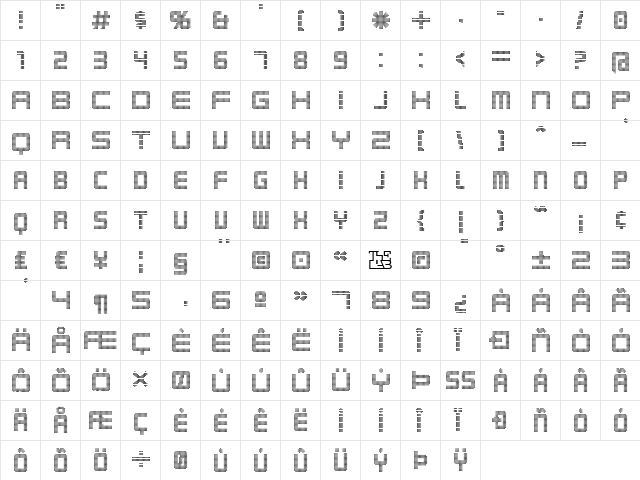
Karnivore Digit Regular
| Designer | Apostrophe |
Design Context for Karnivore Digit Typeface
Karnivore Digit channels digital-age aesthetics through its sharp, structured letterforms — ideal for brands that want to signal innovation.
Pro Tip: Use Karnivore Digit in combination with a neutral sans for body text. Let it define the brand voice in headlines while keeping reading comfortable elsewhere.